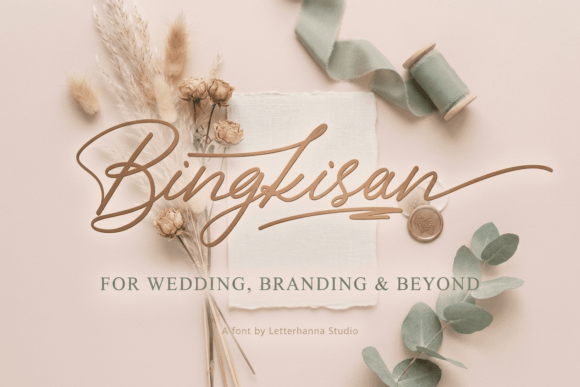
Adding a Touch of Elegance with Bingkisan Font
There’s something special about holding a beautifully designed wedding invitation or a heartfelt thank you card. It’s a moment that transcends words, speaking directly to our emotions and leaving a lasting impression. As designers, we strive to create such moments, and the right font can make all the difference.
Bingkisan Font is a stunning script font that adds a touch of elegance to any design. Whether it’s a wedding invitation, a quote, or a logo, Bingkisan Font brings a handwritten charm that’s hard to resist. With its PUA encoding, designers can easily access all the amazing glyphs and ligatures, making it a valuable tool for any creative project.
For designers looking to add a personal touch to their work, Bingkisan Font is a must-have. Its versatility and beauty make it an ideal choice for a wide range of projects, from greeting cards to business cards. With Bingkisan Font, the possibilities are endless, and the results are always breathtaking.
Bingkisan Font Key Features
- Font Family: Bingkisan Font is a unique, hand-drawn font designed to evoke a sense of elegance and sophistication.
- Unique Characteristics: Bingkisan Font features a distinctive, hand-drawn style with intricate details and flourishes, making it ideal for use in creative and artistic applications.
Bingkisan Font Review
As a designer, I was excited to dive into the world of Bingkisan Font, a beautiful and unique font designed to capture the essence of Indonesian culture. Here’s my honest review:
- The font’s intricate details and patterns make it perfect for projects that require a touch of traditional Indonesian flair.
- The font’s flexibility allows it to be used in a variety of contexts, from logos to packaging and even body text.
- The designer has done an excellent job of balancing the font’s ornateness with readability, making it suitable for a wide range of audiences.
- The font’s complexity may make it difficult to pair with other fonts, as its unique style may clash with more modern or minimalist designs.
- The font’s size and weight may not be as extensive as some other fonts, which may limit its versatility in certain situations.
Overall, I’m impressed with Bingkisan Font’s unique charm and the care that has gone into its design. While it may have some limitations, it’s a great choice for projects that require a touch of Indonesian culture and tradition. With some careful pairing and consideration, I think Bingkisan Font can be a valuable addition to any designer’s toolkit.
For optimal results, use Bingkisan Font in conjunction with other fonts that complement its unique characteristics. Experiment with different font sizes, colors, and styles to create visually appealing designs.
Bingkisan Font is ideal for creative projects that require a touch of elegance and sophistication. It’s commonly used in wedding invitations, business cards, and other design materials that require a unique and stylish font.